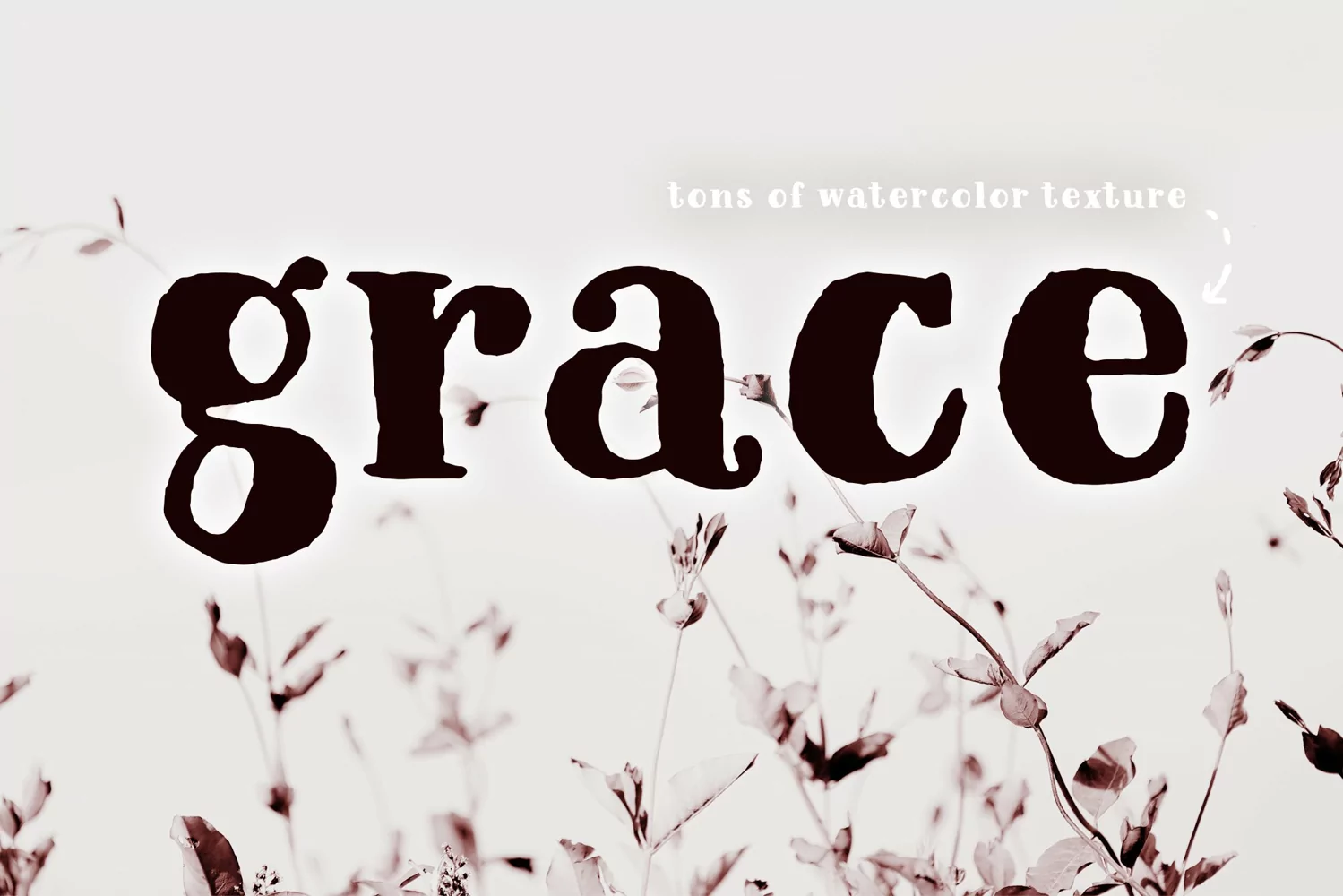
This is Breakfast Foodie, a pretty hand painted font! It was made with a teeny brush and pretty watercolors. It has authentic watercolor textured edges. It's a pretty serif font, and pairs well with my other hand painted fonts - try it with Butterbell, Toast, and Marmalade!
Use Breakfast Foodie for branding, headlines - anywhere you need to grab attention. It also looks great when used for typography projects.